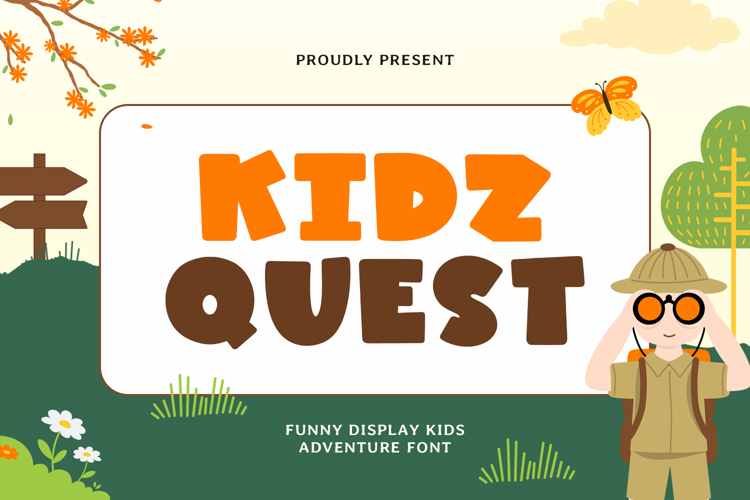
Kidz Quest - Kids Font
Kidz Quest – Kids Font is a bold and adventurous display typeface designed to spark imagination and exploration. With playful shapes and a fun, handcrafted look, this font captures the excitement of discovery—perfect for children’s adventures, educational themes, and creative branding.
Inspired by the spirit of curiosity and outdoor exploration, Kidz Quest brings a joyful sense of wonder to every project. Its chunky, easy-to-read letters make it ideal for zoo signage, amusement park boards, game titles, adventure maps, and classroom materials.
The friendly and dynamic design of Kidz Quest makes it perfect for projects that celebrate learning, fun, and creativity. Whether used for national park posters, jungle-themed crafts, or playful educational tools, this font brings an energetic personality that draws attention and inspires young minds.
Versatile and eye-catching, Kidz Quest works beautifully in both digital and print creations—from Cricut projects and handmade signs to app titles and storybook covers.
Set off on a creative adventure with Kidz Quest – Kids Font. Add this playful, bold, and adventurous typeface to your toolkit and make every design burst with energy, joy, and imagination.